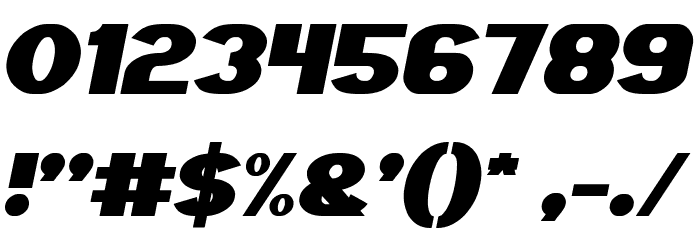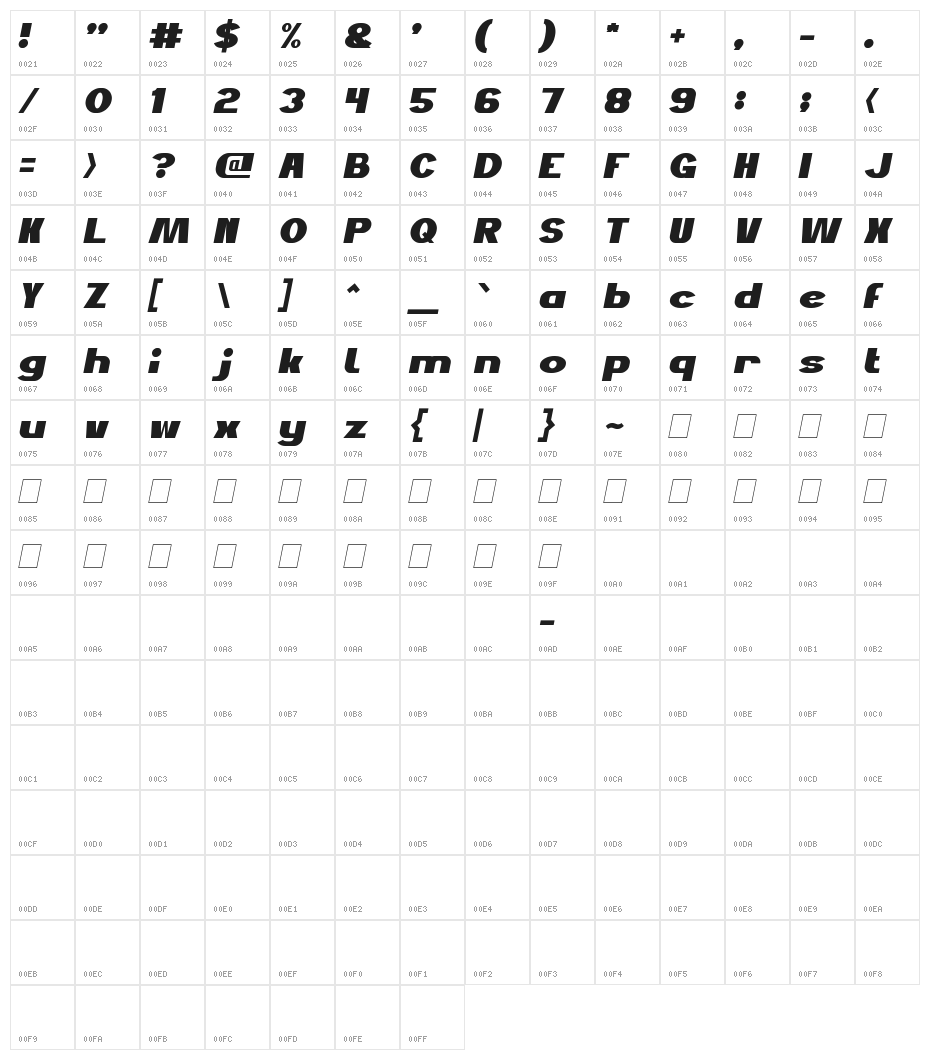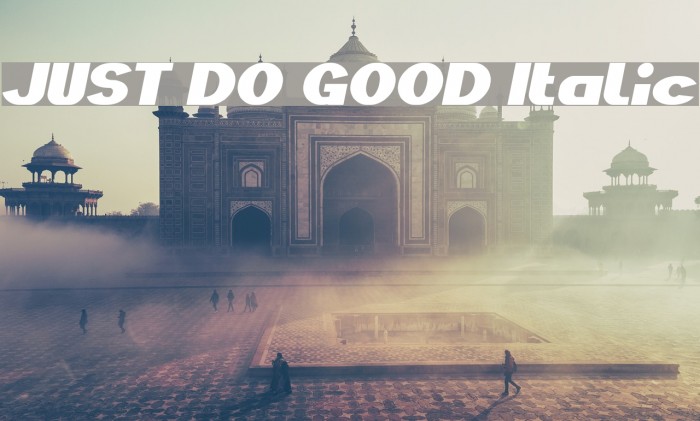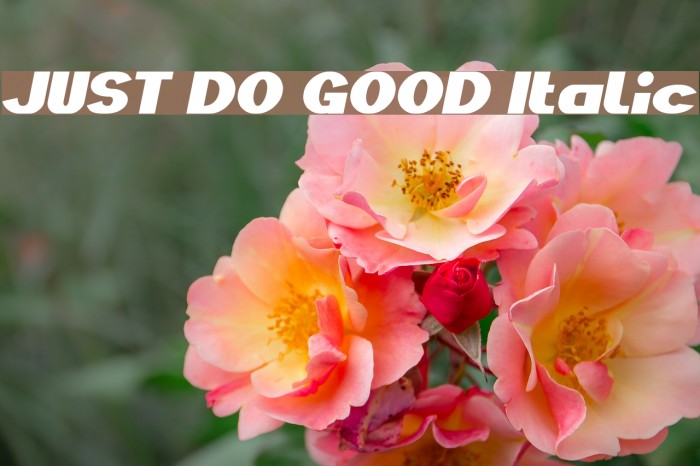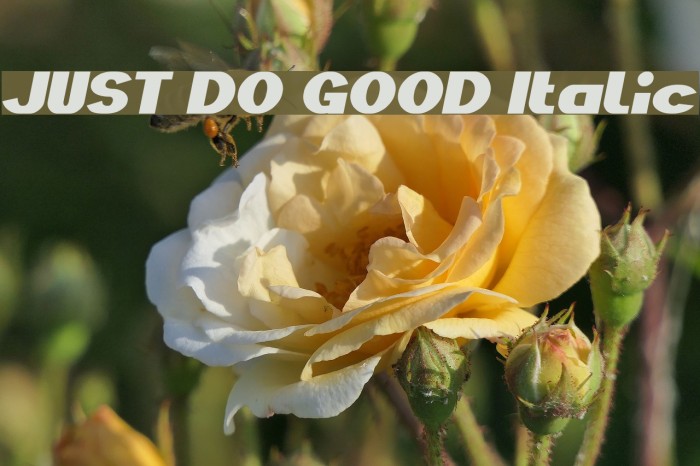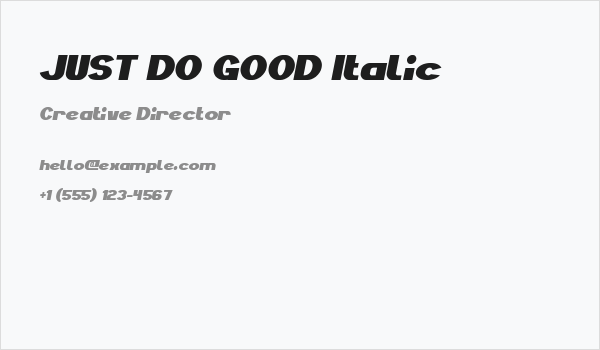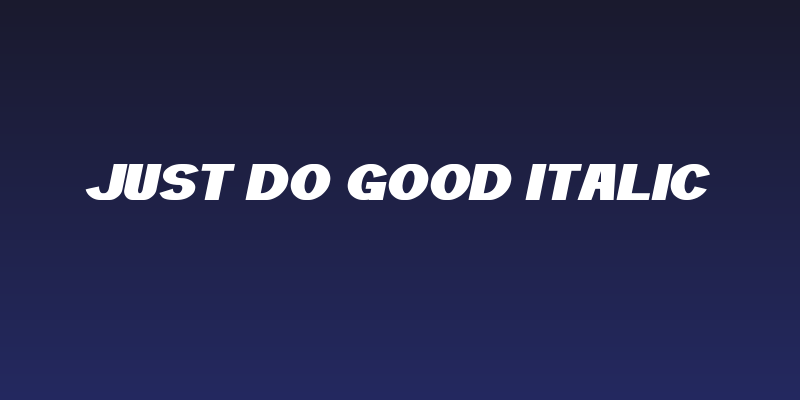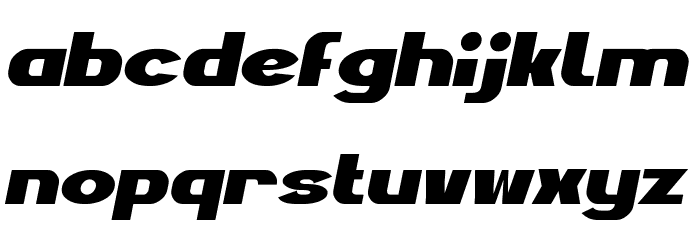
JUST DO GOOD Italic Font
JUST DO GOOD Italic Description
This bold, italic typeface features a dynamic and energetic style, characterized by its thick strokes and forward-leaning posture. The letters are tightly spaced, creating a sense of urgency and movement. The uppercase and lowercase letters maintain a consistent weight, providing a cohesive appearance. The numerals and special characters are designed to match the boldness and slant of the alphabet, ensuring uniformity across all text. This font's strong presence makes it suitable for impactful headlines and attention-grabbing designs.
| Proposed Projects | Ideal for sports branding, dynamic posters, and bold advertising campaigns. |